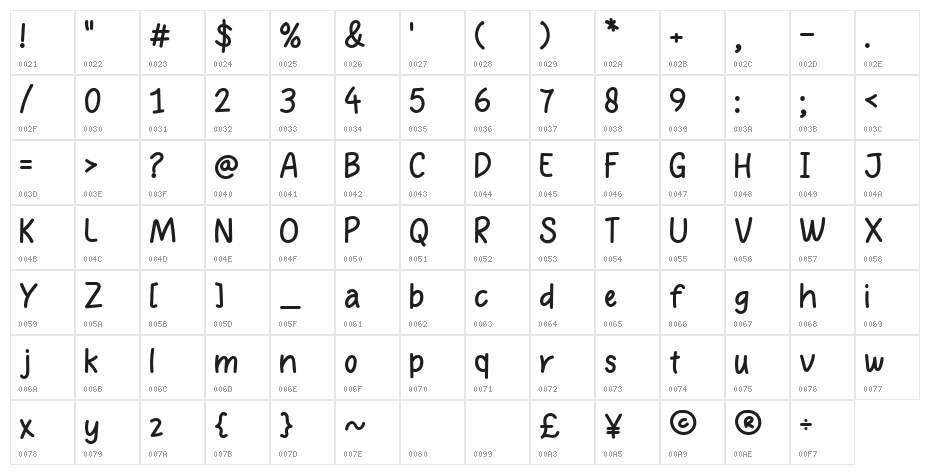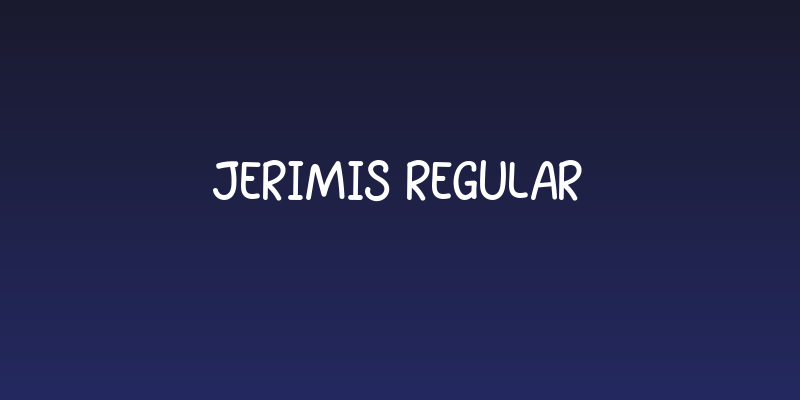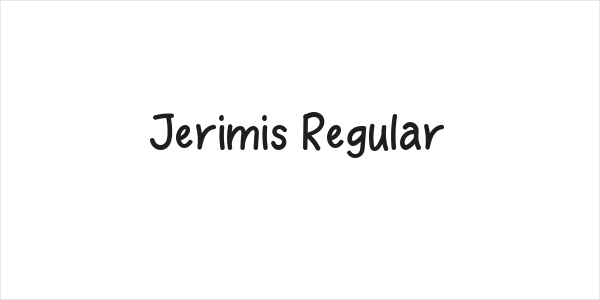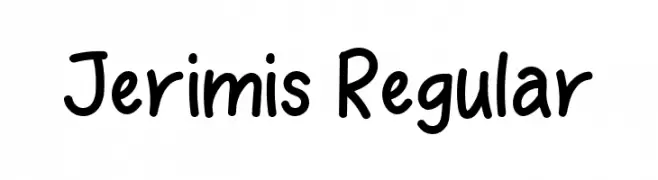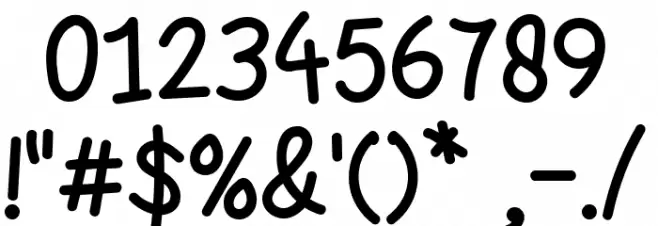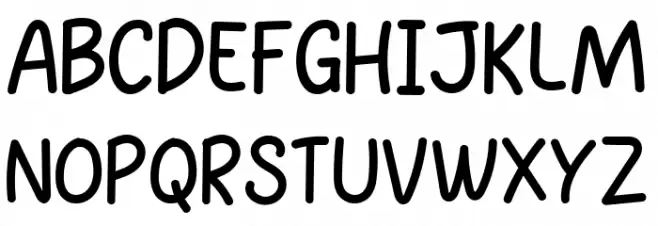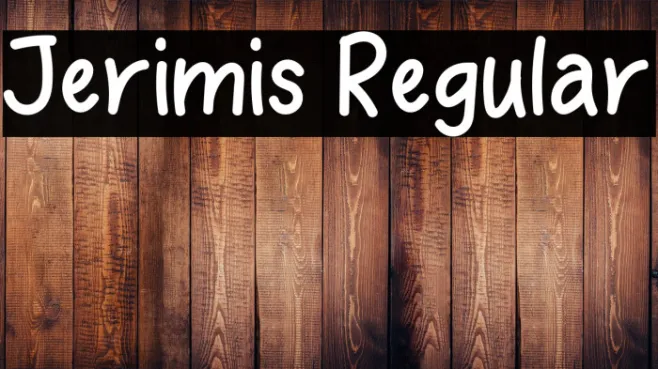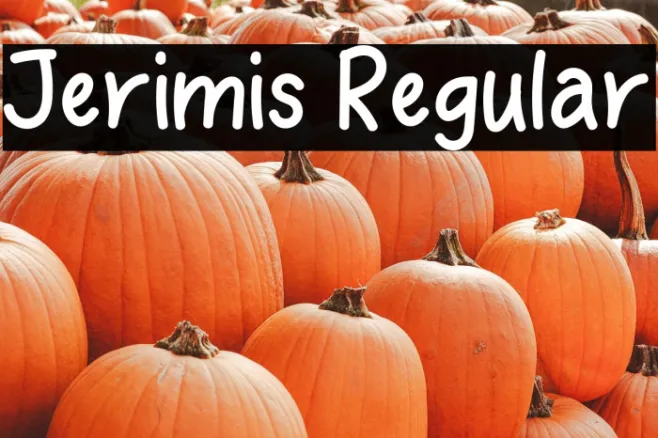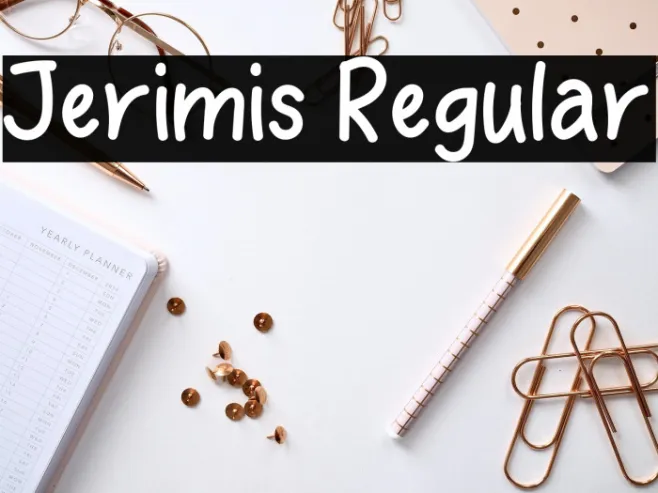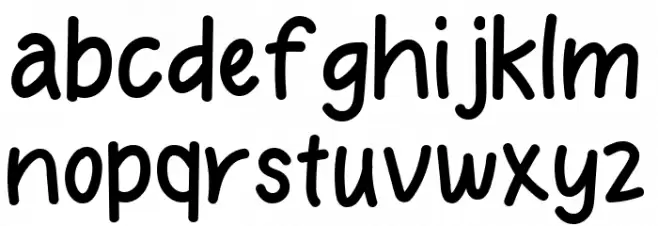
Jerimis Regular Font
Jerimis Regular Description
A playful, rounded handwritten typeface with consistent stroke width, open counters, and a casual, friendly appearance. The characters are slightly irregular, mimicking natural handwriting, and the overall look is approachable and informal.
| Overall Style | Playful, Casual, Friendly |
| Use Case | Headlines, Posters, Informal Text, Branding |
| Proposed Projects | Children’s books, greeting cards, informal branding, posters, educational materials. |